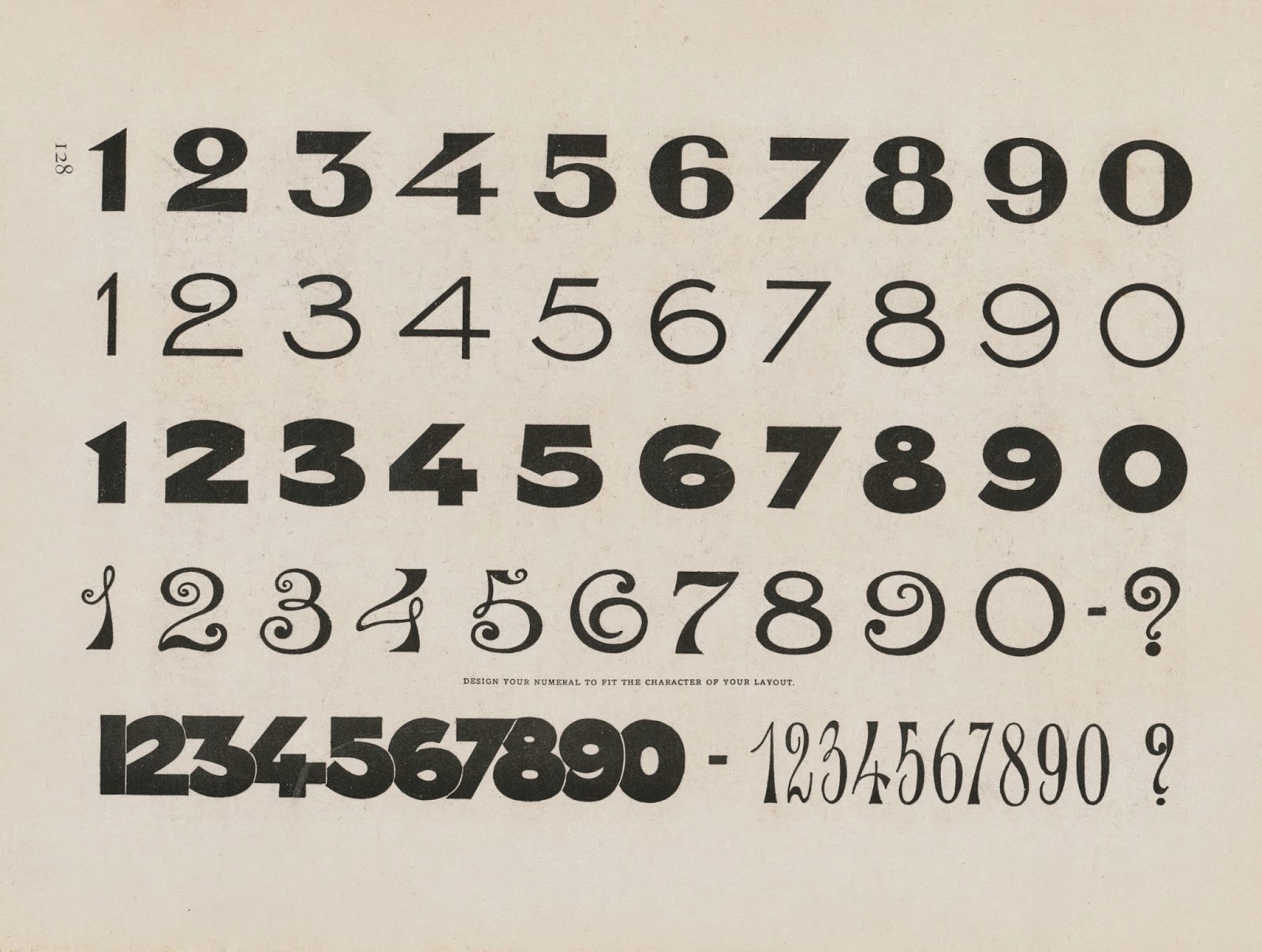
Jos Vandenbreeden and Linda Van Santvoort
Sint-Lukasarchief, 1989
Exhibition catalog design by Hennebert
56 pages; covers and selected pages below
About Joseph Diongre
Lettering: Charles J. Strong and the Detroit School of Lettering
The Detroit School of Lettering was founded by Charles Jay Strong who was born September 28, 1866 in Huntsville, Illinois. Strong’s birth date was recorded on his death certificate. However, a 1907 Catalogue of Copyright Entries had his birth year as 1865. Strong’s birthplace was based on the 1860 and 1870 census records.
1860 United States Federal Census
Huntsville, Illinois
Household Members:
Name / Age / Occupation
M D Strong, 54, Doctor (Strong’s paternal grandfather)
Laura Strong, 56, (Strong’s paternal grandmother)
Daniel W Strong, 22, Printer (Strong’s paternal uncle)
M D Strong, 15, Farmer (Strong’s father)
1870 United States Federal Census
Huntsville, Illinois
Name / Age
Laura Strong, 56 (Strong’s paternal grandmother, a widow)
Marcus D Strong, 25 (Strong’s father)
Jennie Strong, 27 (Strong’s mother)
Charles Strong, 4
Hattie Strong, 2 (Strong’s sister)
The Milwaukee Sign Works timeline said Strong apprenticed, in 1879, at Frank R. Grout Signs of Chicago.
1880 United States Federal Census
118 Sixth Street, Peoria, Illinois
Name / Age / Occupation
MD Strong, 32, Wholesale Grocer
Jennie Strong, 38
Charles Strong, 14
Hattie Strong, 13
Willie Strong, 9
Fred Strong, 7
Walter Strong, 4
Joahana Dillon, 19
(Farther down is a short article about M.D. Strong in the
Journal of the American Bankers Association, October 1910.)
1881 Peoria, Illinois, City Directory
Charles J Strong, Salesman M.D. Strong & Co., 118 Sixth
1885 Chicago, Illinois, City Directory
Charles J Strong, Sign Painter, 796 Fulton
1887 Chicago, Illinois, City Directory
Charles J Strong, Painter, 19 Walnut
1888 Chicago, Illinois, City Directory
no listing
1889 Chicago, Illinois, City Directory
Charles J Strong, Portraits, 38, 113 Adams (Art listing)
The Milwaukee Sign Works timeline said Strong’s new employer, in 1895, was P. Pause & Company in Chicago.
The Detroit Free Press, September 25, 1916, said the Detroit School of Lettering was founded in 1898. Descriptions in the American College and Private School Directory (1915) and Patterson’s American Educational Directory (1920) said the school was established in 1899.
1900 United States Federal Census
90 North Sacramento, Chicago, Illinois
Household Members:
Name / Age / Occupation
C J Strong, 33, Sign Painter
Ida Strong, 32
Lawrence Strong, 12
Chas Strong, 10
Strong’s father, a widower and commercial traveler, resided in Canton, Illinois at 30 West Pine Street.
The Morning Herald
(Lexington, Kentucky)
June 2, 1901
A New Sign Painter
Louis H. Ramsey & Co. Have Secured the Service of an Expert from Chicago.
Messrs. Louis H. Ramsey & Co. have secured the services of Mr. Charles J. Strong, of Chicago, Ill., one of the best, if not the best, sign painter in that city—and Chicago is noted for its artistic sign painters—to take charge of their sign department. He will arrive Monday, bringing with him all the latest ideas in sign painting and designing. Mr. Strong was formerly foreman of the famous sign firm of F. R. Grout & Co., Chicago.
The Morning Herald
(Lexington, Kentucky)
June 7, 1901
Expert Sign Painter
Charles J. Strong, the well-known sign writer, has arrived from Chicago, and is now connected with the firm of L. H. Ramsey & Co. Mr. Strong is said to be one of the best sign painters in the country, having been for many years foreman of the shop of F. R. Grout & Co., of the Windy City. His family will arrive next week.
The Morning Herald
(Lexington, Kentucky)
October 19, 1901
Election of N. U. Officers.
A new council of the National Union was instituted in the city last night. The following officers were installed:
Vice President—Charles J. Strong
1903 Detroit, Michigan, City Directory
Charles J Strong, Artist, 327 Hendrie av
September 16, 1903
Drummond Island Lumber Co., $25,000, and the Detroit School of Lettering, $5,000, filed articles of incorporation with the secretary of state here to day.
September 21, 1903
New Michigan Corporations
…Detroit School of Lettering,
(Michigan)
September 25, 1903
With the Corporations
New Concerns Which Filed Articles During Past Week
Lansing, Mich., Sept. 21.—The following corporations filed article of association with the secretary of state during the past week: …Detroit School of Lettering, Detroit, $5,000…
A Collection of Drawings and Description of Store Window Backgrounds
George John Cowan
The Dry Goods Reporter, 1912 (revised 1920)
May 1921
The style of the accompanying alphabet (capitals and lower case) is known as modern italic and is a practical and artistic letter. It was designed by Mr. Chas. J. Strong, of Detroit, Mich., and it constitutes a practical,
November 1929
Lettering: Modern and Foreign
Samuel Welo